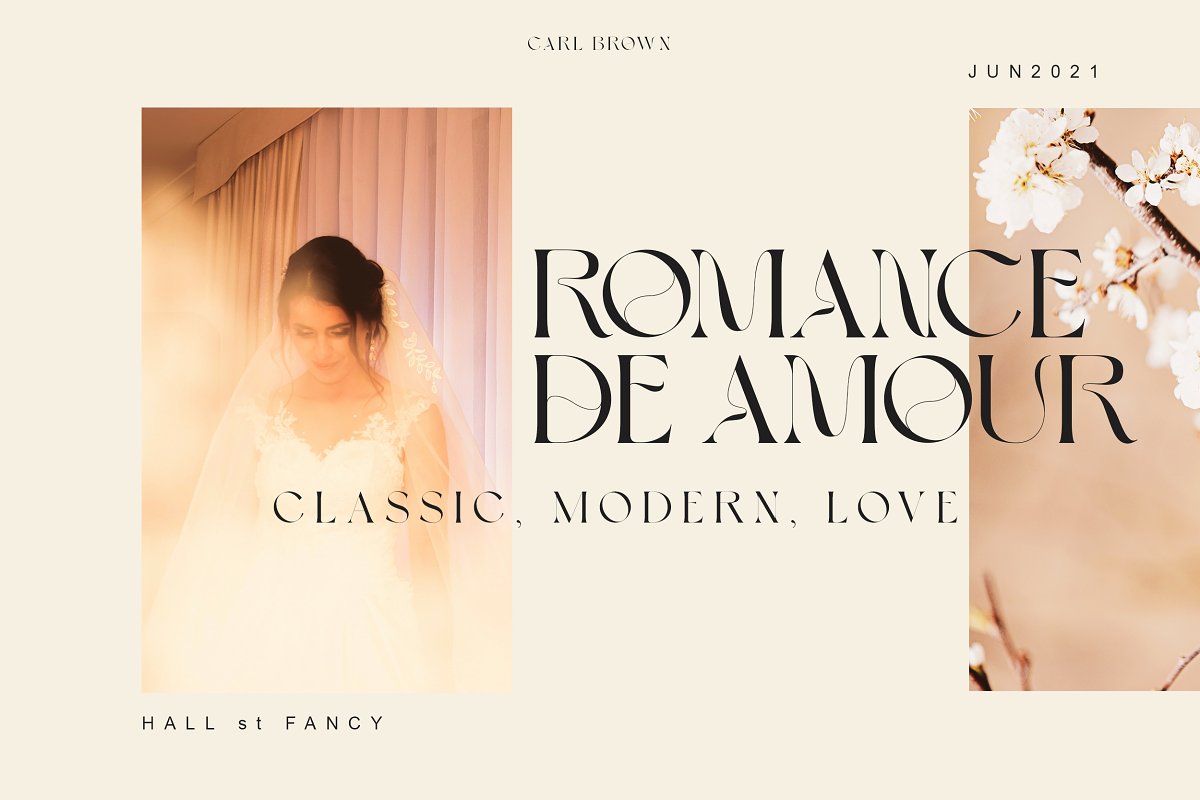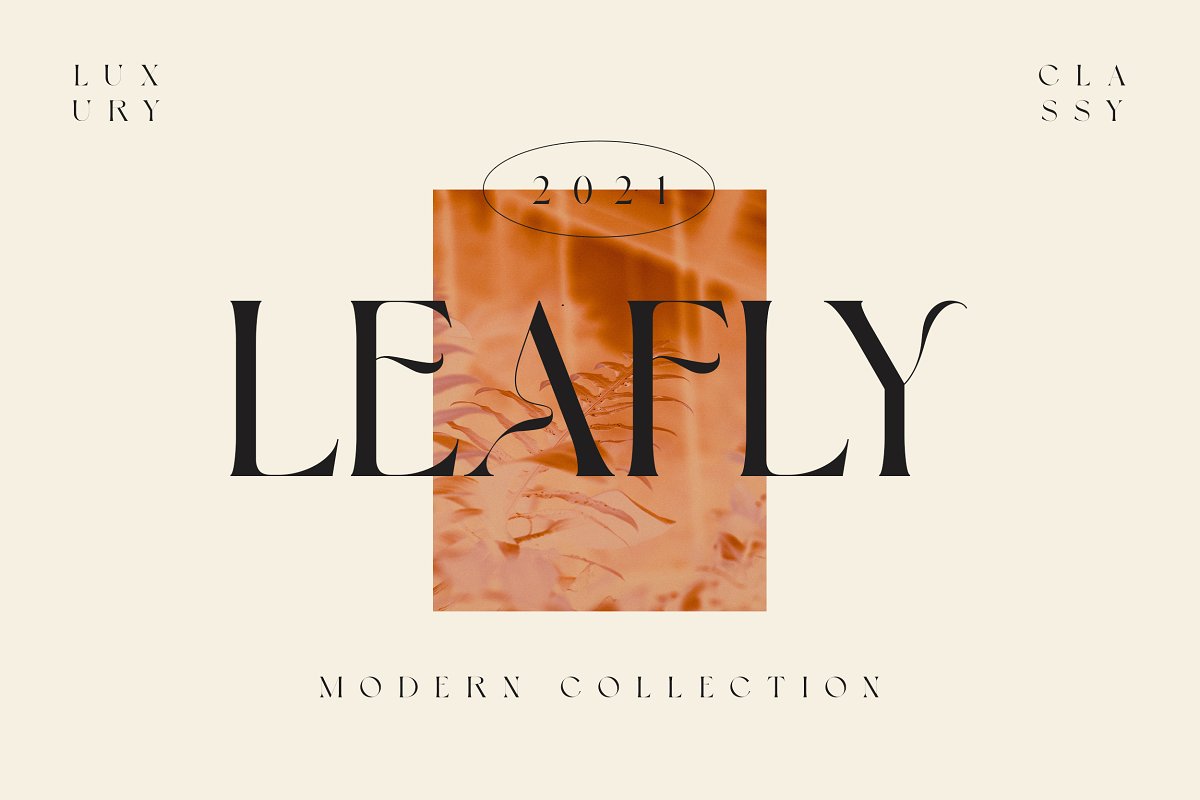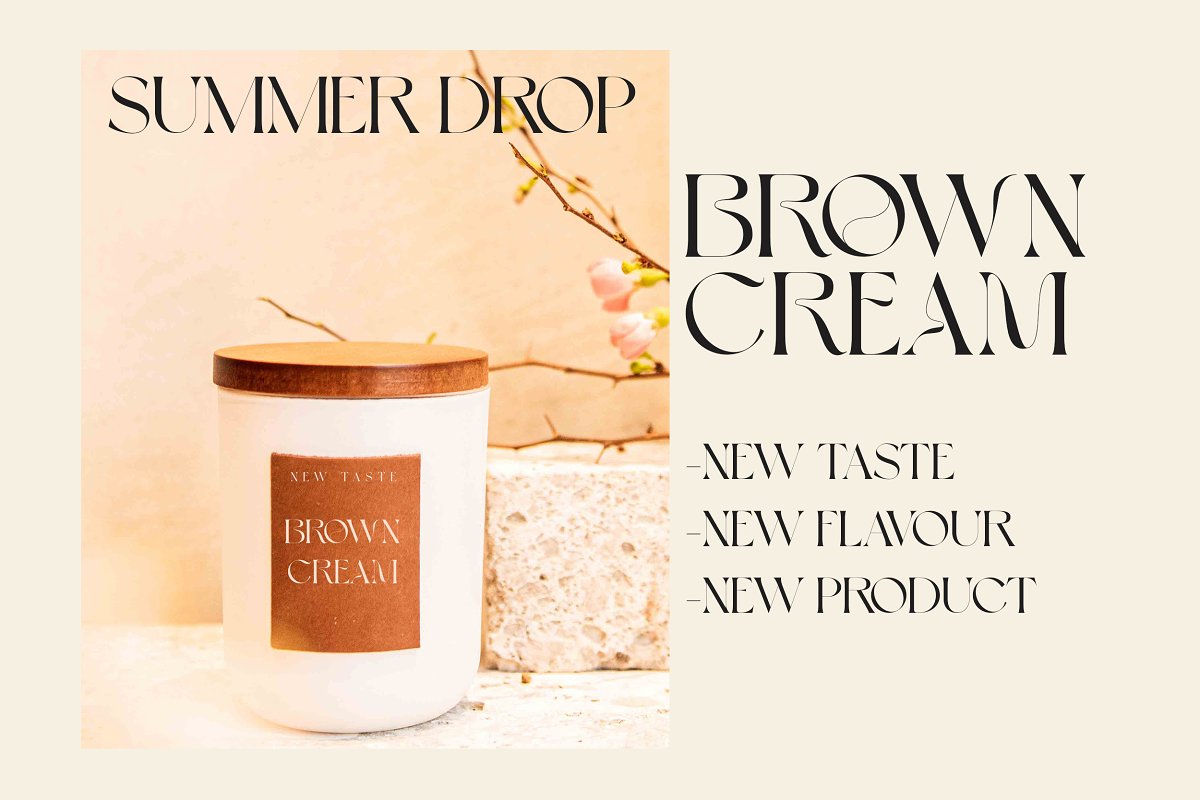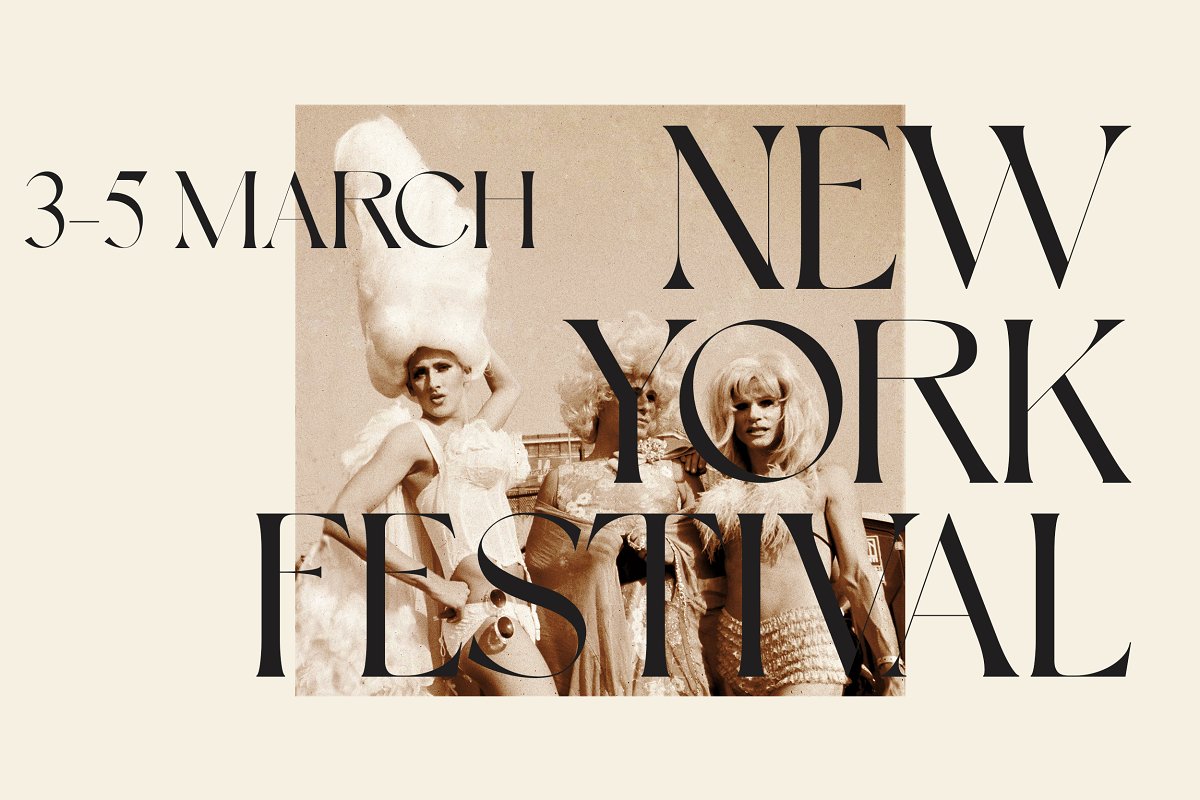
About the Carl Brown Modern Serif Font
Carl Brown fonts includes uppercase letters, numerals, a large range of punctuation, Serif font with modern style, Created for poster, web design, branding, illustrations, badges and some other works, Carl Brown OTFCarl Brown TTFPlease contact us if you have any question, we are happy to help you!Thank you!Do you want a custom logo design? Contact me at: muntabart@gmail